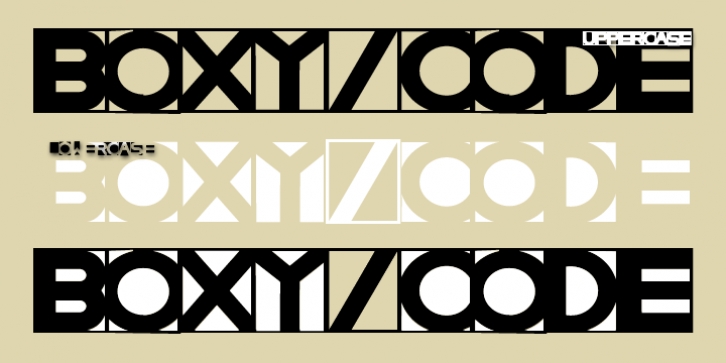
In the late 60’s, one of the best art publications in the country was Motive magazine, published (amazingly) by the United Methodist Church. Filled to the brim with poetry, essays, line drawing and woodcuts, it also featured some cutting-edge typography. Boxy/Code is based upon my memories of woodcut typography from that great magazine. Since Boxy/Code’s lowercase consists of the uppercase’s negative spaces, it’s easy to combine the two with Layer Styles in Photoshop in order to achieve the effect I used in one poster above. It also works great if you use a well-known text as a background. This new version is totally redrawn and features all the Latin-accented letters. Uppercase consists of black capitals in boxes; lowercase features the negative spaces of those boxed capitals. Uppercase and lowercase line up exactly for 2-color effects.